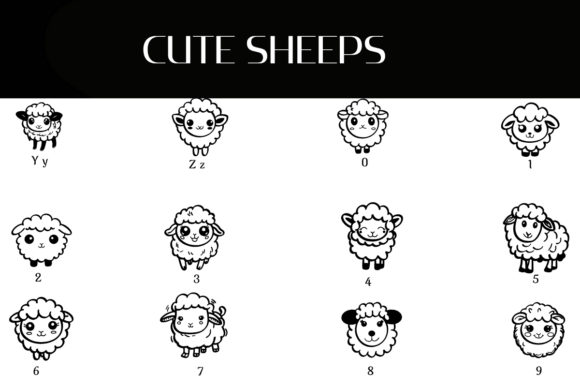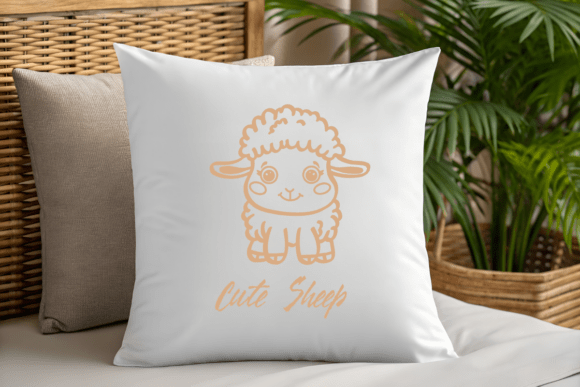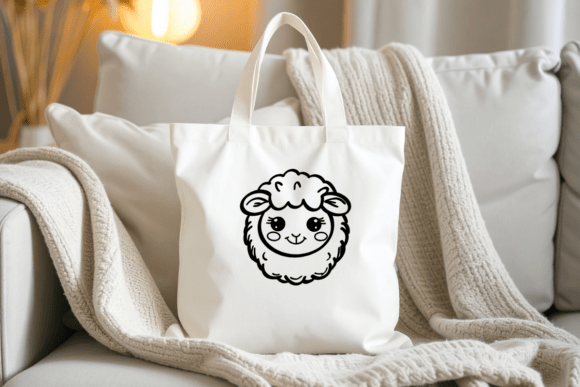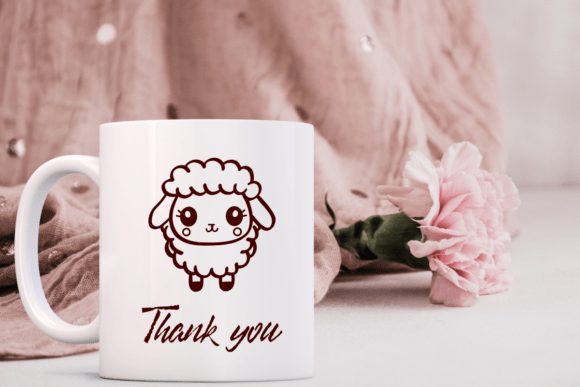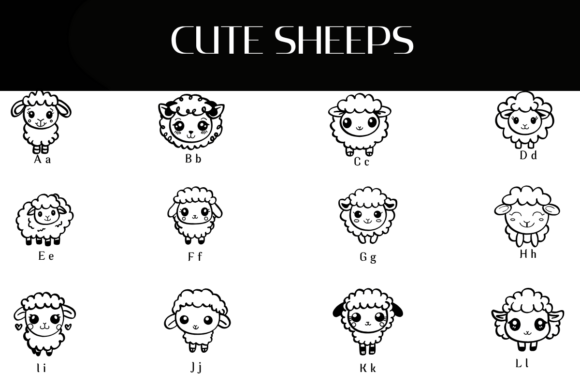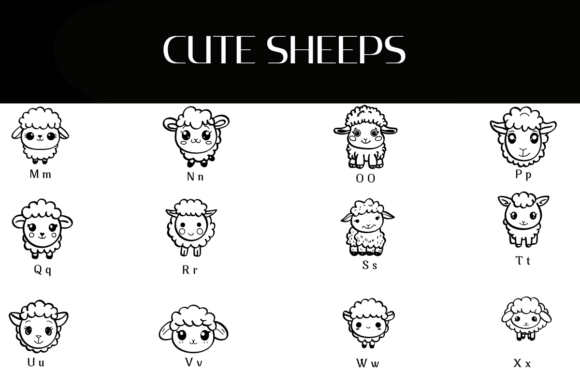
Introduction to Cute Sheeps Font
Cute Sheeps is a lovely dingbats font.
Add it to your creative ideas and you will love the results .
Cute Sheeps Font offers exceptional quality and versatility, making it a valuable addition to your design toolkit. Whether you’re creating for personal projects or commercial use, Cute Sheeps Font delivers professional results.